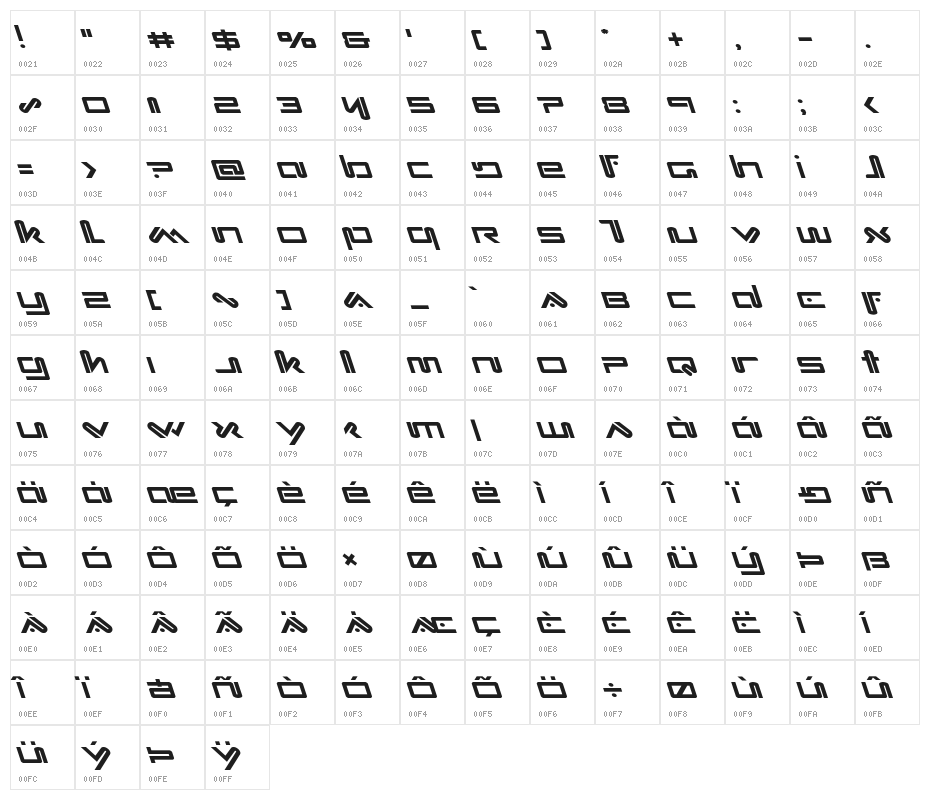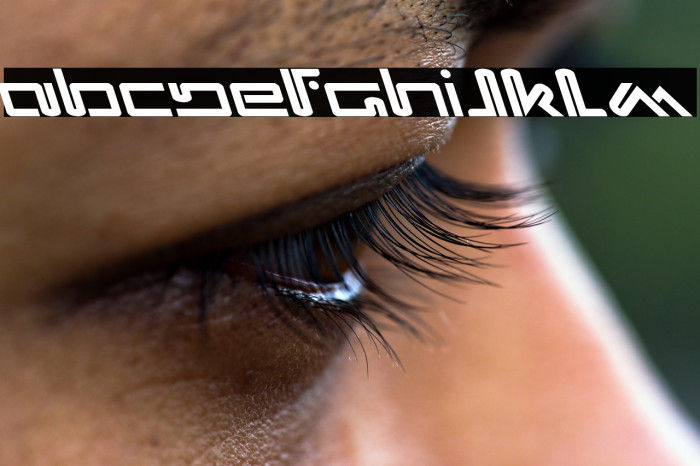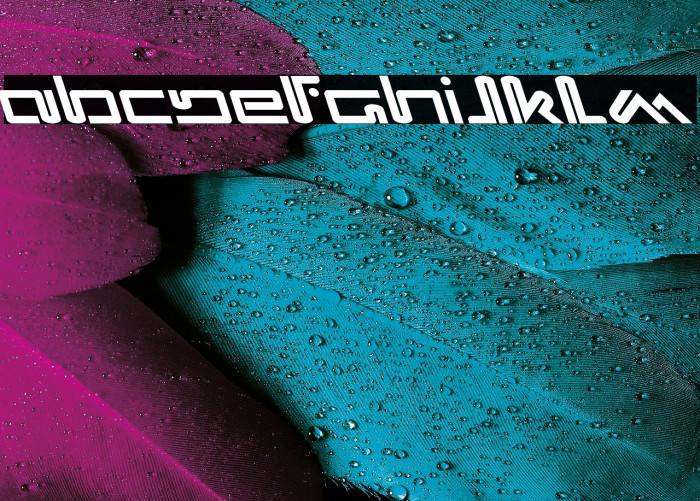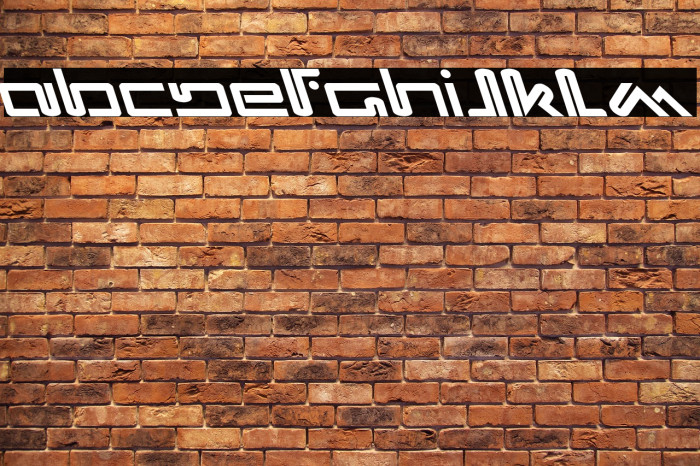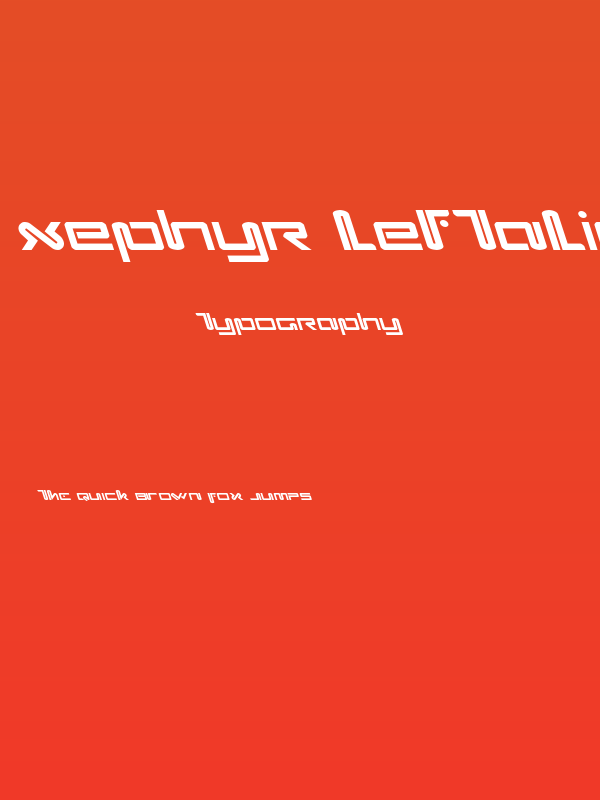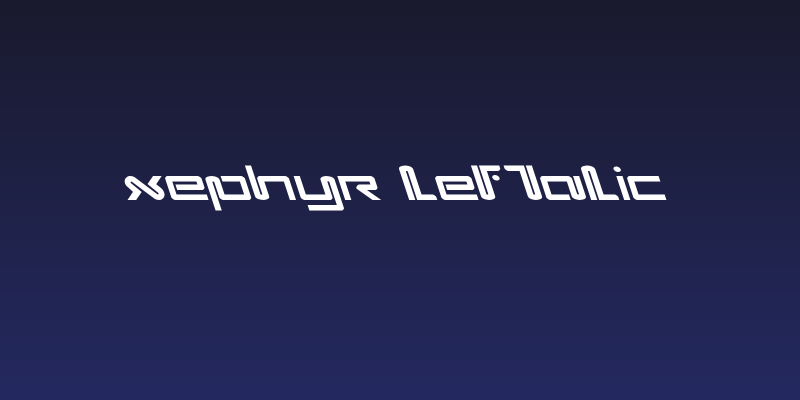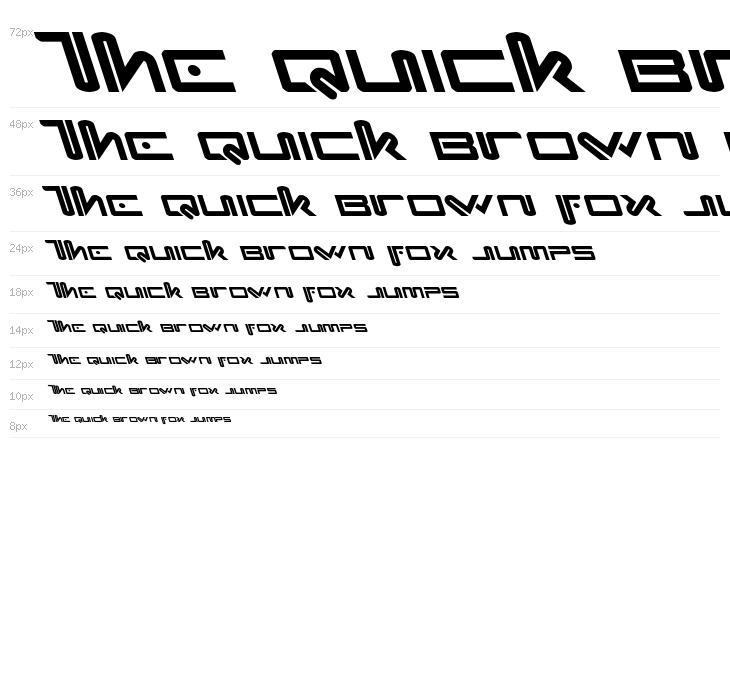
Xephyr Leftalic Font
Xephyr Leftalic Description
This font features a futuristic and angular design, characterized by sharp edges and geometric shapes. The letters are constructed with a bold, solid appearance, giving them a strong presence. The style is consistent across uppercase, lowercase, and numeric characters, maintaining a cohesive look. Special characters are also designed with the same angular aesthetic, enhancing the overall modern and tech-inspired feel. The font's unique structure makes it stand out, suitable for projects that require a distinctive and eye-catching typeface.